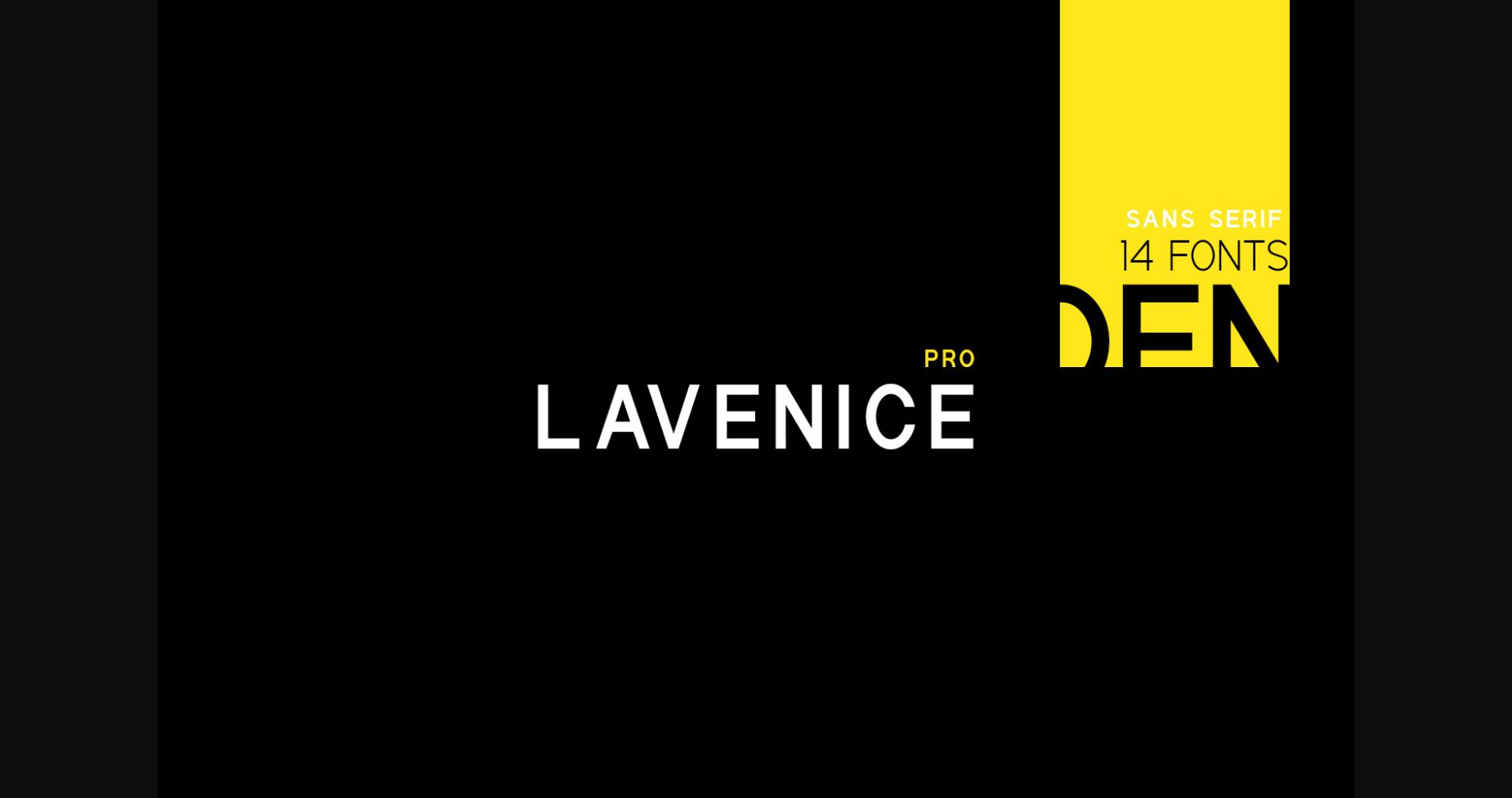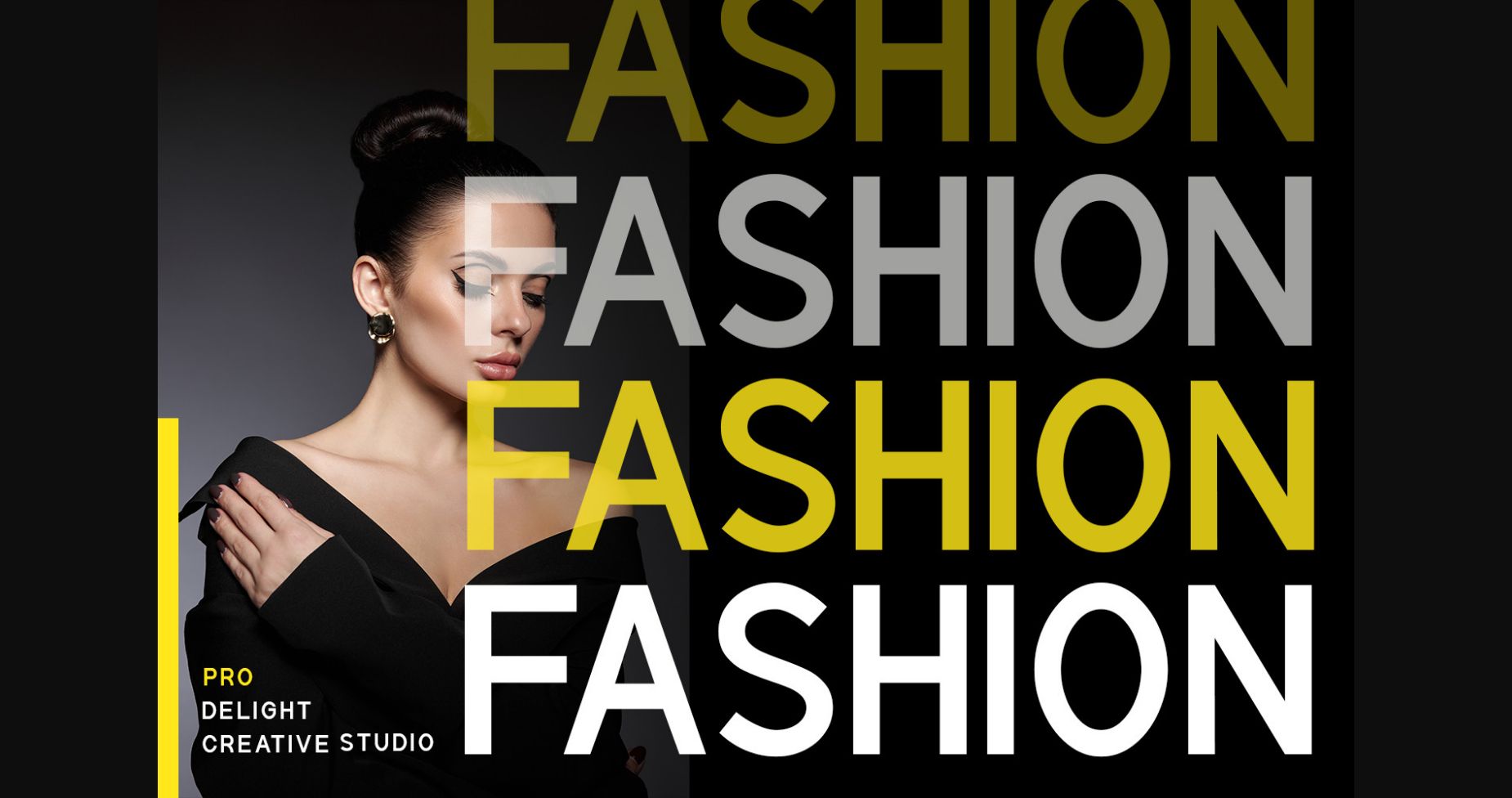
About Lavenice Font
Lavenice is a unique and modern sans serif font. Suitable to a wide variety of designs due to its neat and simple style, this font has the potential to become your favorite go-to font, no matter the occasion!